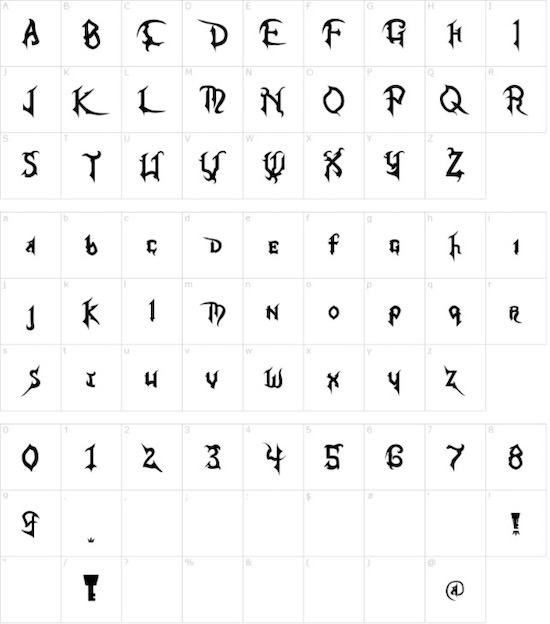
Introducing Kingdom Hearts font. It’s a great Gothic font that was used in designing for Kingdom Hearts’ logo, a famous series of action role-playing games. This game talks about the story of Sora’s searching for his friends and his encounters with them who are characters in Final Fantasy, Disney, etc.
Kingdom Hearts Gothic font
Designer Name: Eliot Truelove